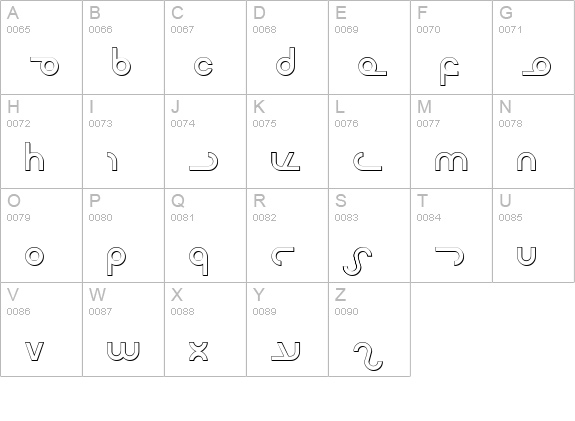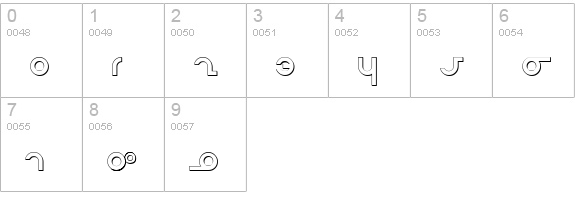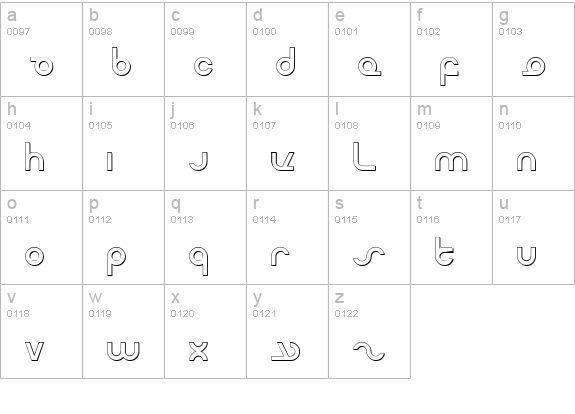
Masterdom Shadow font is a stunning display typeface that exudes elegance and sophistication. With its intricate and bold design, this font is perfect for making a statement in your projects. The unique shadow effect adds depth and dimension, making your text stand out with a modern twist. Best of all, Masterdom Shadow font is available for free download at FontsMarket.com. Whether you're working on a branding project, poster design, or any creative endeavor, this font will elevate your work to the next level. Don't miss out on the opportunity to add this eye-catching font to your collection and unleash your creativity today!